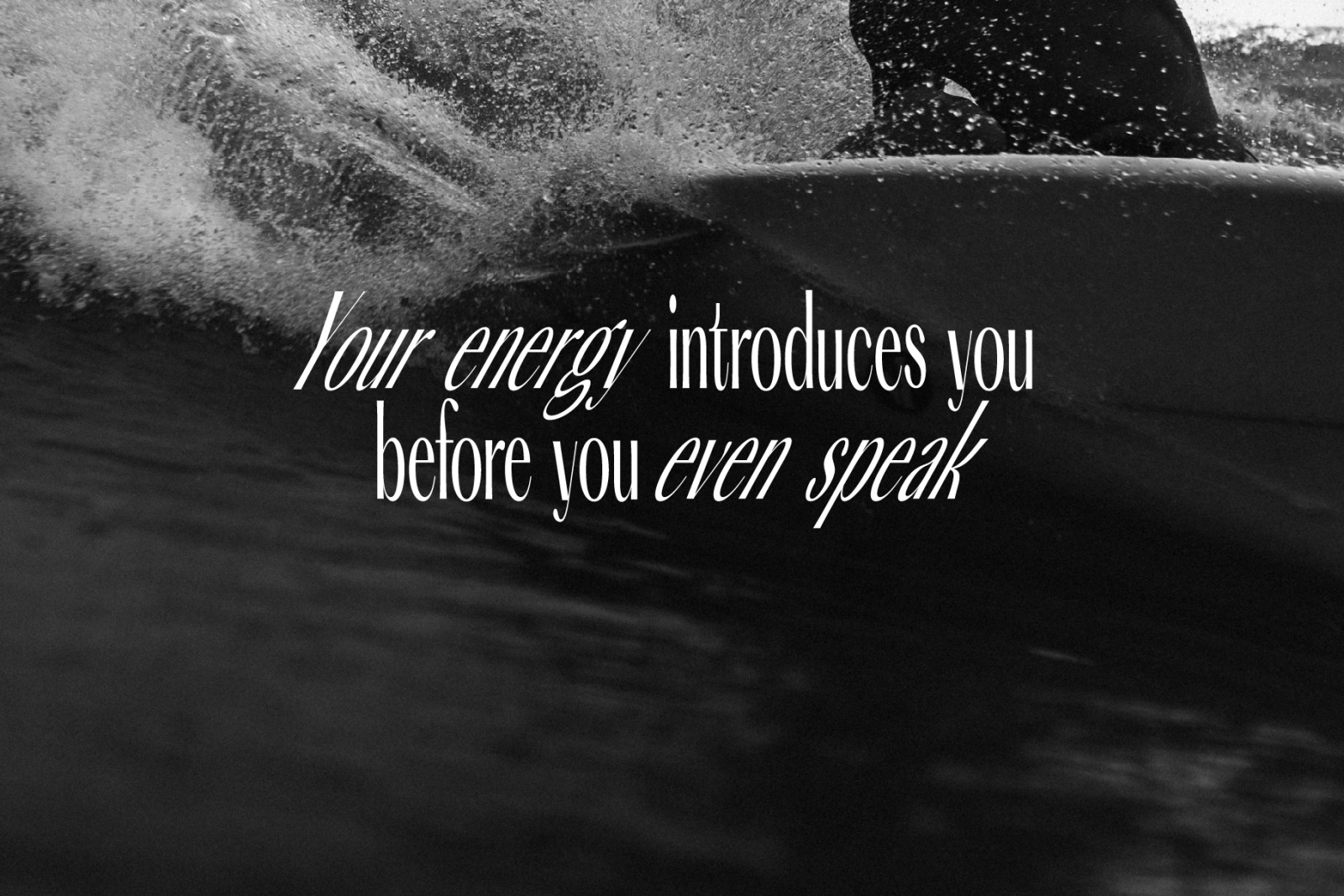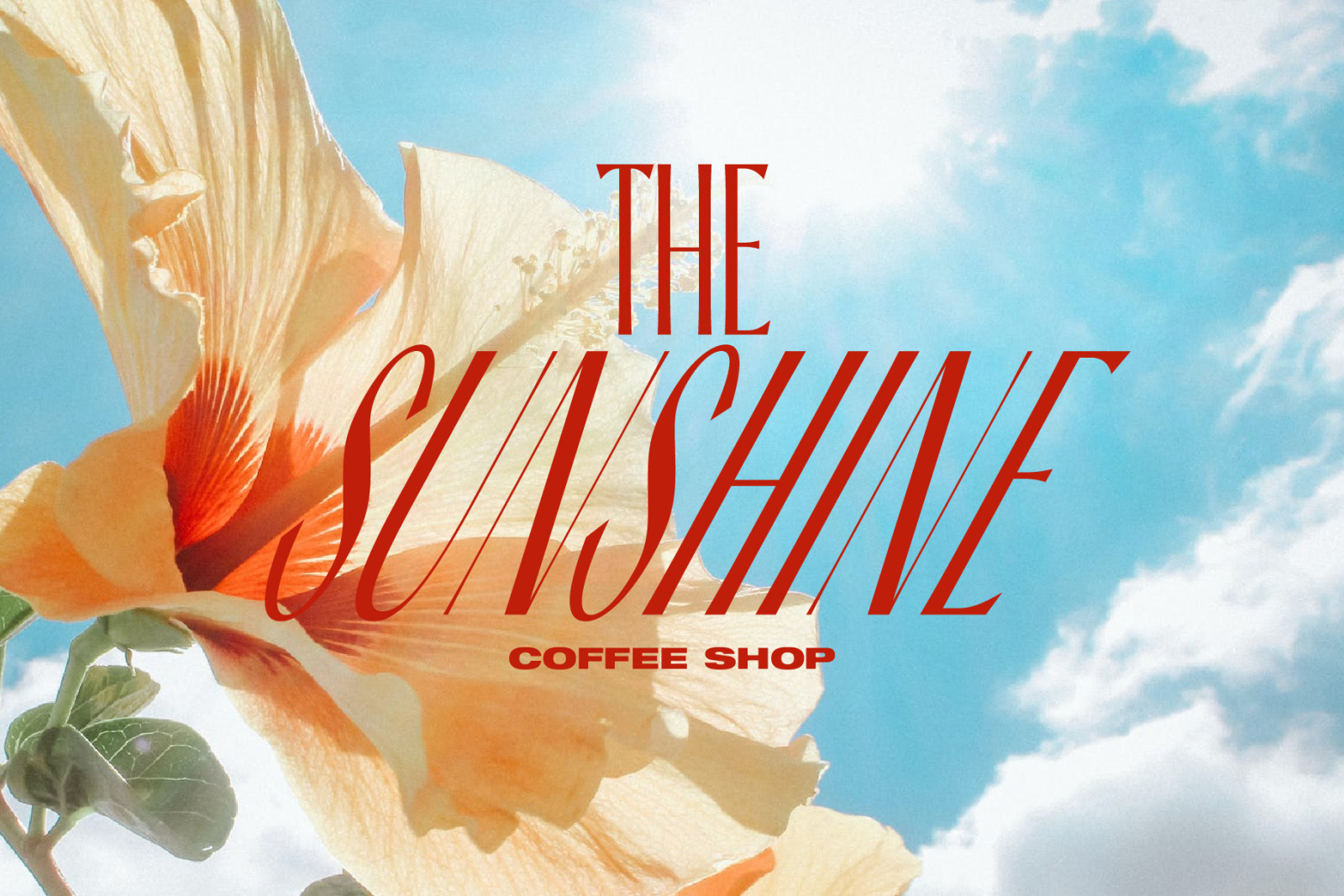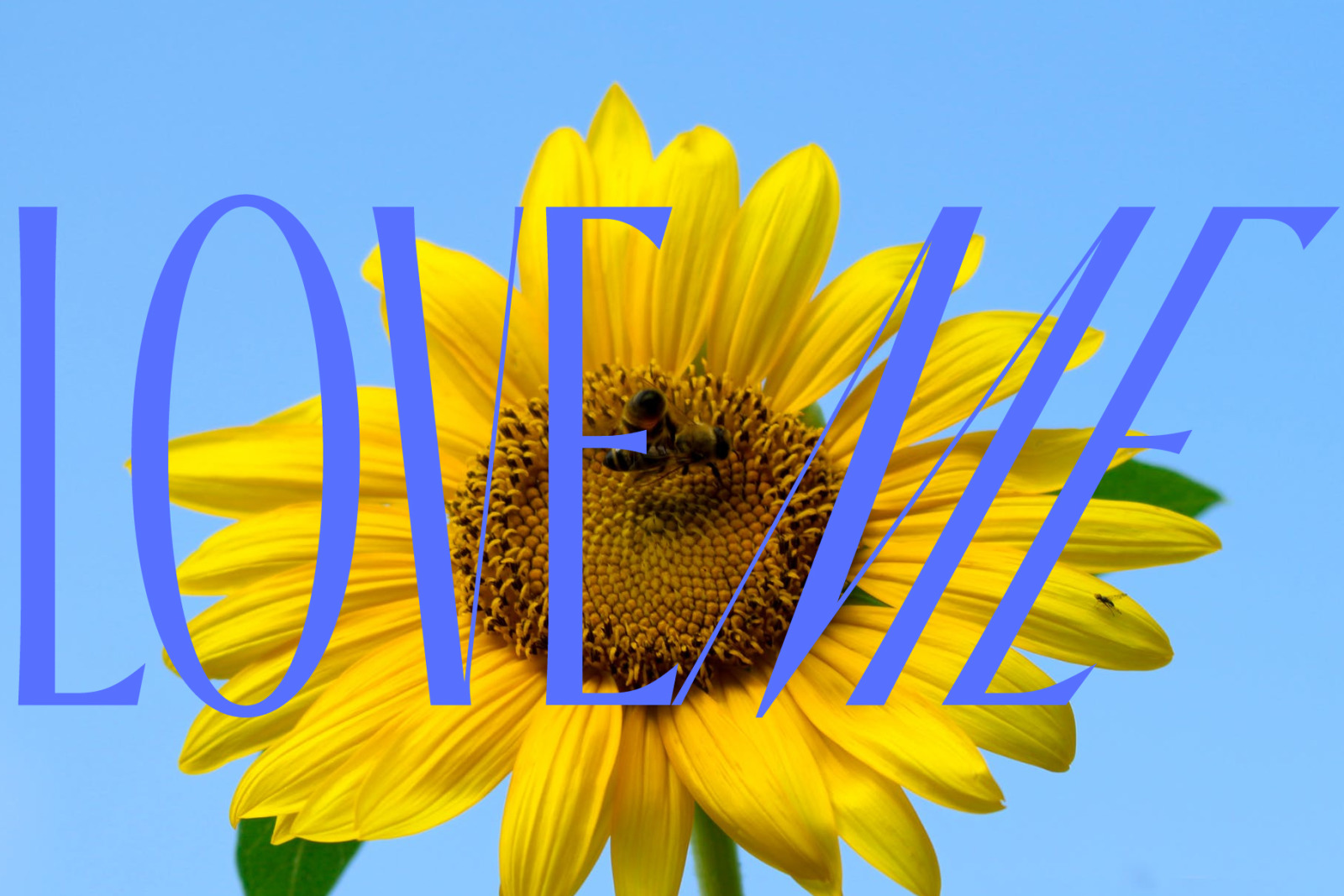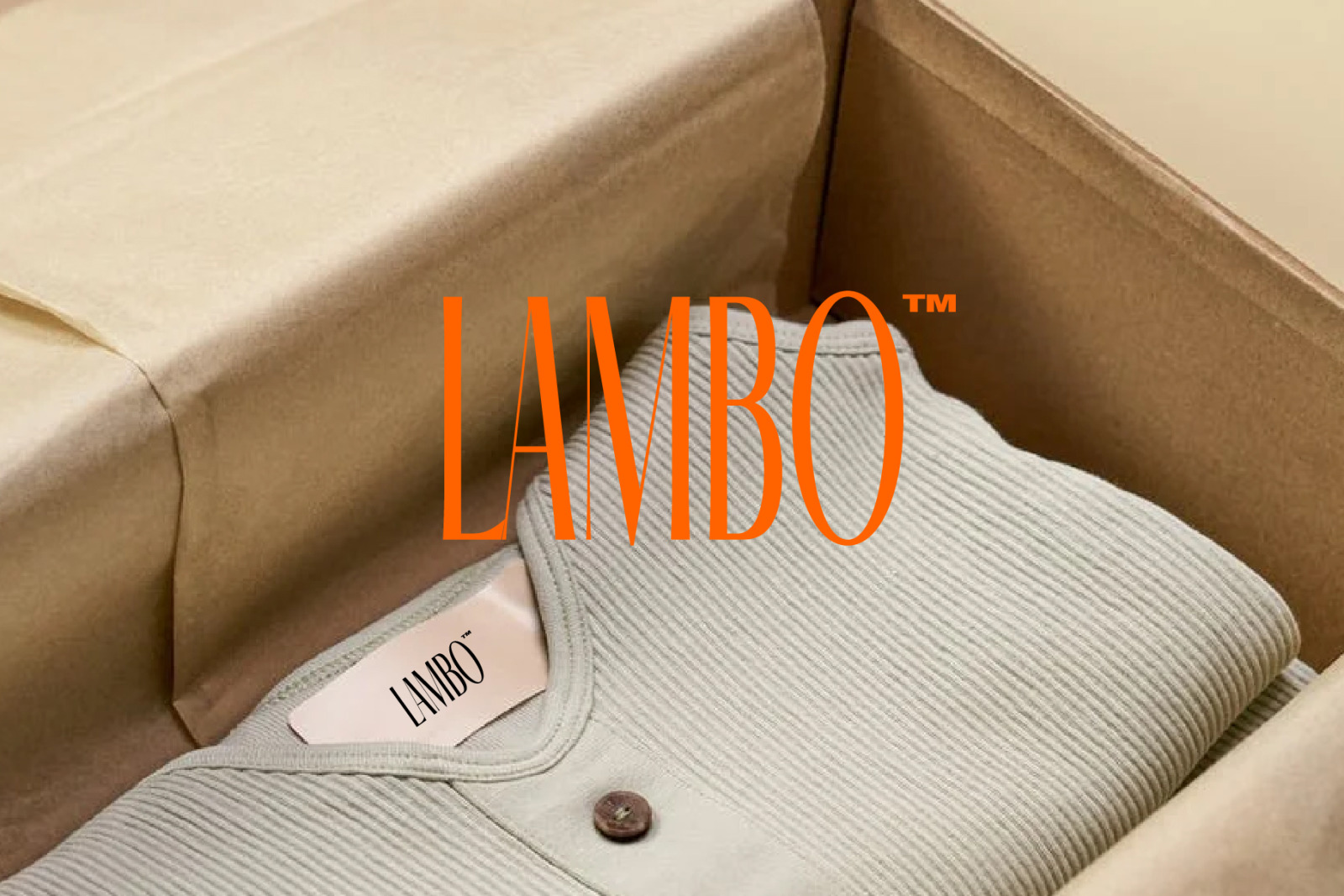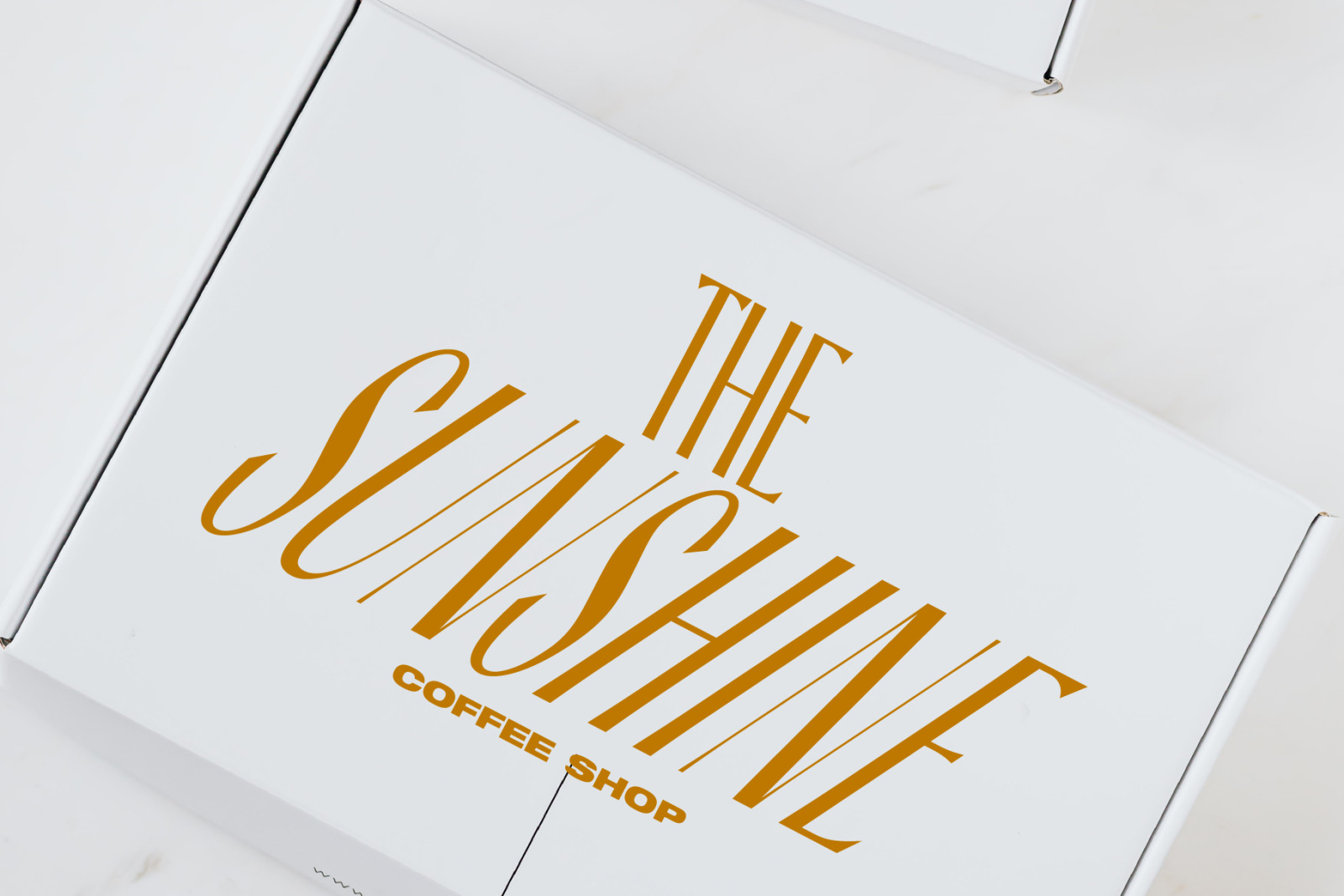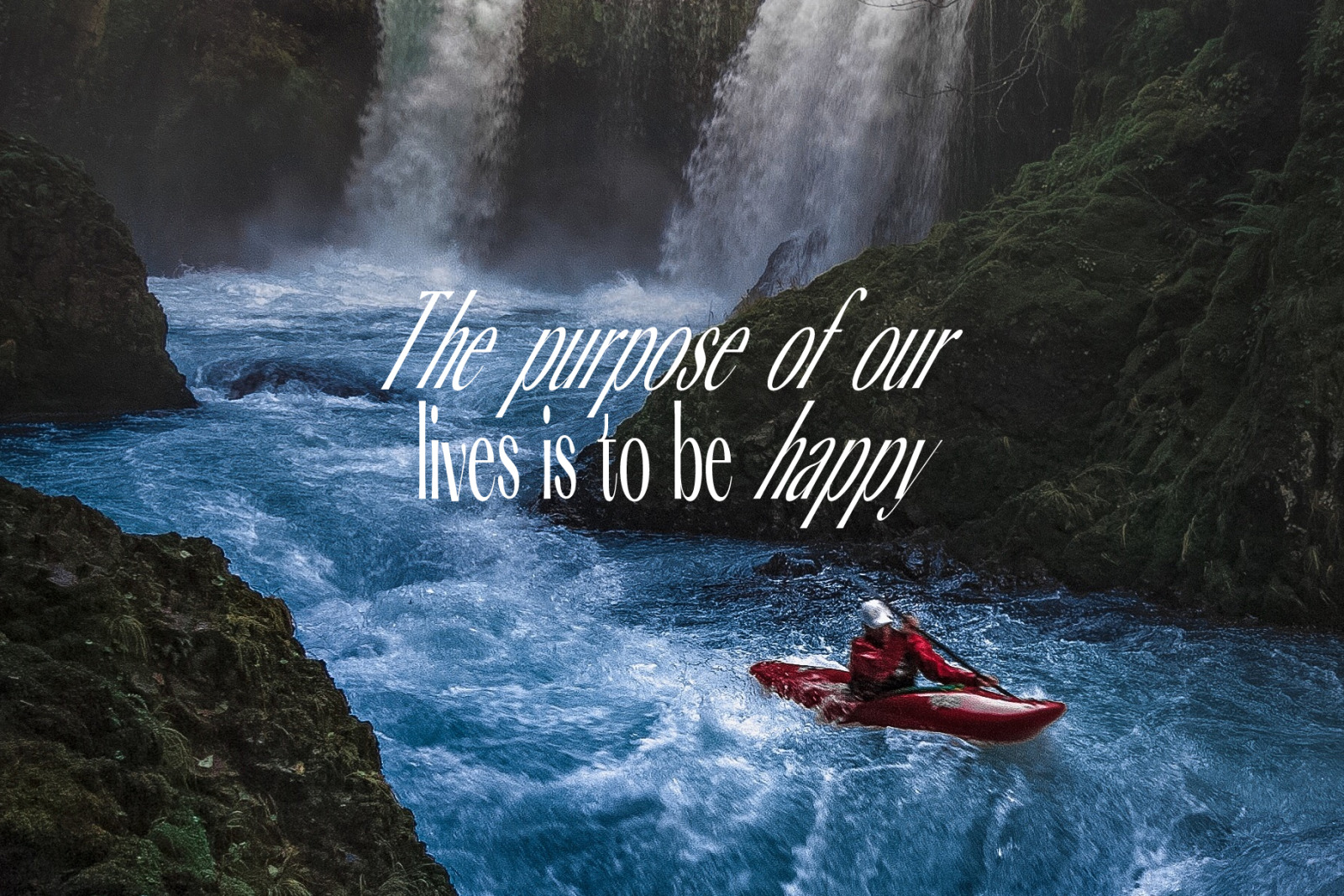
A classic is an outstanding example of a particular style; something of lasting worth or with a timeless quality; of the first or highest quality.
Archive is a typeface created to live in a classic, even disruptive context, one way this typeface lives will always be by using it in graphics set up for minimalist developments.